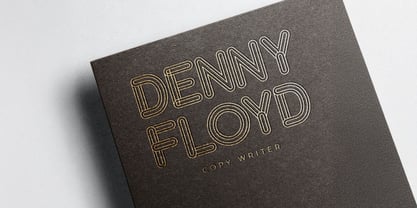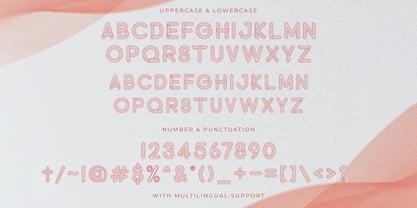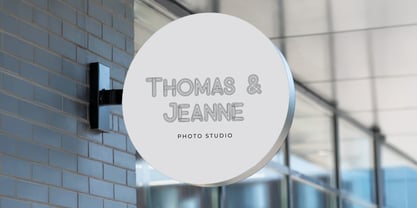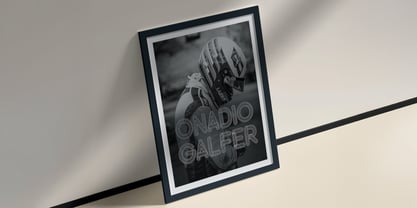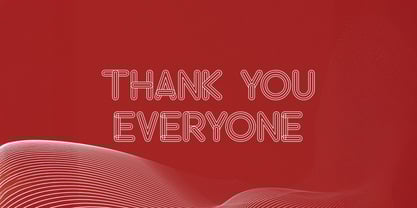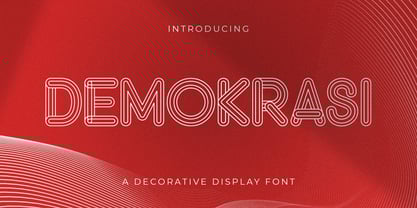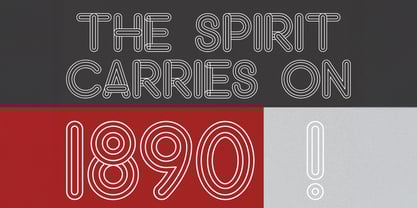
The Demokrasi Font Family was designed by Virgiawan Listanto and published by Stringlabs Creative Studio. Demokrasi contains 1 styles. More about this family
Introducing DEMOKRASI, a powerful decorative display font inspired by strength, unity, and bold expression. With its sharp edges, commanding structure, and patriotic flair, DEMOKRASI is made to stand tall and grab attention. Ideal for protest posters, editorial headlines, political campaigns, event branding, or any design that demands presence and impact this font delivers a voice that can’t be ignored.
Designers: Virgiawan Listanto
Foundry: Stringlabs Creative Studio
Demokrasi